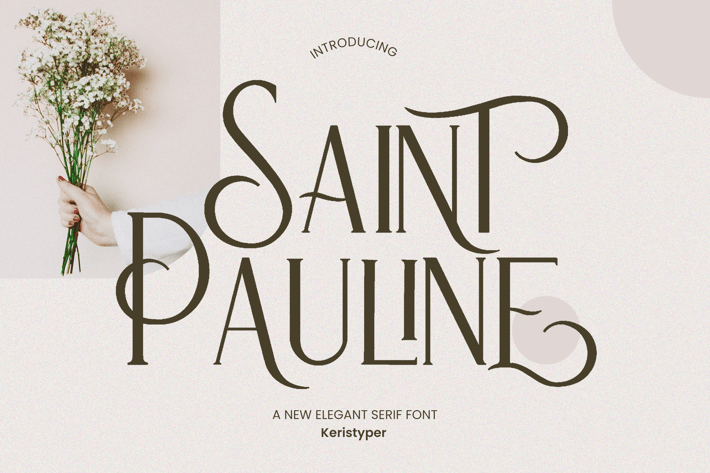
Saint Pauline Serif Font
Saint Pauline is a modern minimalist serif font. Elegant Vintage aesthetic design inspired by the Art deco era. Fonts include special uppercase letters, alternate characters and beautiful ligatures. This font is perfect for an elegant logo, packaging or invitation card design.